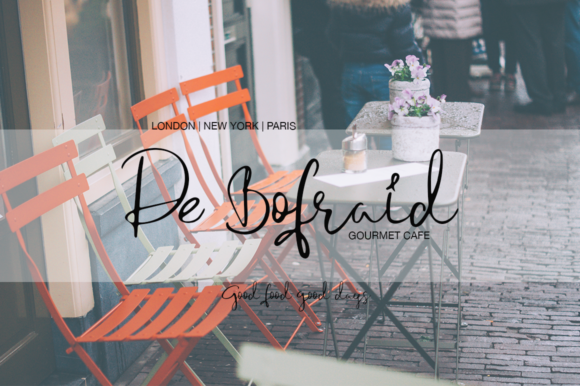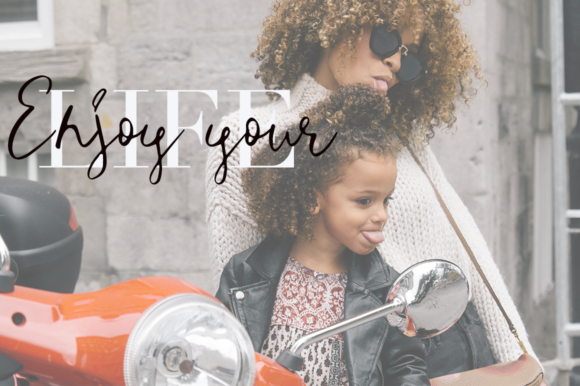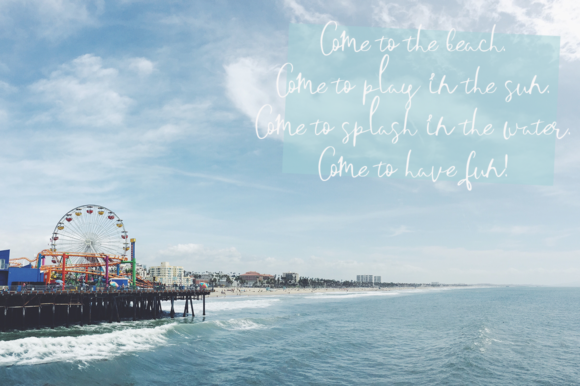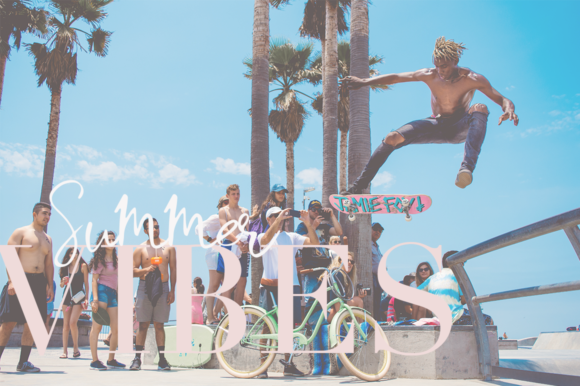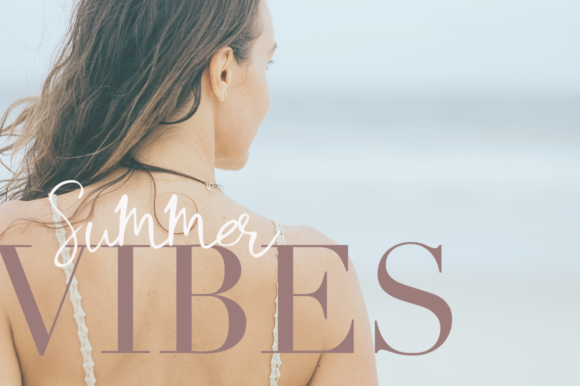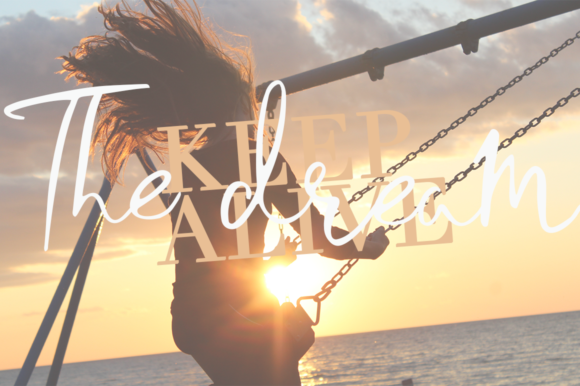
The Sweet Spot: Discovering the Charm of Godfrey Font
I’ll never forget the time I was working on a branding project for a boutique client, and I was on a mission to find the perfect font to capture her feminine and elegant vibe. I scrolled through page after page of Google results, tried out font after font, but nothing seemed quite right. That was until I stumbled upon Godfrey Font. It was like a breath of fresh air – sweet, charming, and effortlessly elegant. In this article, I’ll share my love for Godfrey Font, its features, and how to make the most of it in your designs.
An Honest Review of Godfrey Font
- ✨ Sweet and feminine feel: Godfrey Font has a unique, handwritten quality that adds a touch of warmth and personality to any design.
- ✅ Versatile: It’s perfect for a wide range of projects, from greeting cards and branding materials to business cards and quotes.
- 💫 Elegant and refined: The font’s flowing lines and delicate curves make it perfect for designs that require a touch of sophistication.
While Godfrey Font is an amazing addition to any design project, there are a few things to keep in mind:
- 🤔 Limited use in body text: Due to its elegant and refined nature, Godfrey Font might not be the best choice for long blocks of body text. It’s better suited for headings, titles, and short paragraphs.
- ⚠️ Pay attention to font size: Godfrey Font can look a bit delicate at smaller font sizes, so make sure to test it at different sizes to ensure it works well for your project.
The Backstory of Godfrey Font
While I couldn’t find any information on the designer’s inspiration for Godfrey Font, it’s clear that it was created with love and care. The font’s elegant and refined lines make it perfect for designs that require a touch of sophistication. Whether it was inspired by traditional calligraphy or modern digital design, Godfrey Font is a beautiful addition to any project.
Q: What type of projects is Godfrey Font best suited for?
A: Godfrey Font is perfect for projects that require a feminine and elegant touch, such as greeting cards, branding materials, business cards, and quotes.
Q: Is Godfrey Font a difficult font to read?
A: Godfrey Font is a elegant and refined font, but it can be a bit delicate at smaller font sizes. Make sure to test it at different sizes to ensure it works well for your project.
Q: Can I use Godfrey Font in digital and print designs?
A: Yes, Godfrey Font is versatile and can be used in both digital and print designs. Its elegant and refined lines make it perfect for a wide range of projects.